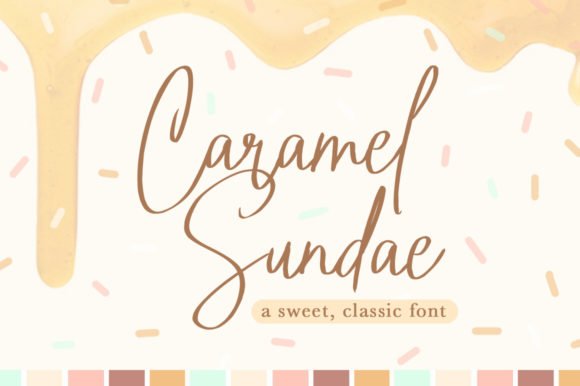
A Sweet Twist on Typography: Introducing Caramel Sundae Font
Have you ever been brainstorming a design project, flipping through font options, and suddenly, a single typeface sparks an idea that makes your creativity soar? For designers, those ‘aha’ moments are the best, and the Caramel Sundae Font is here to ignite your imagination.
This lovely, light handwritten font is inspired by the classic Caramel Sundae drink, and it’s as sweet and delicious as the real thing. The Caramel Sundae Font is designed to add a personal touch to any design project, making it stand out from the crowd. Whether you’re working on a logo, poster, or social media graphic, this font is sure to bring a smile to your audience’s faces.
What makes the Caramel Sundae Font so valuable for designers is its versatility and charm. It’s perfect for adding a touch of whimsy and personality to your designs, making it a must-have in every designer’s toolkit.
Caramel Sundae Font Key Features
- Unique Characteristics: Includes swash and alternate characters for added flair, supports Latin and Cyrillic scripts
- Font Style: Script, handwritten
Caramel Sundae Font Review
I recently had the chance to work with the Caramel Sundae font, and I must say it’s a unique and intriguing addition to any design project. ✨ The font’s warm and inviting tone immediately caught my attention, and I appreciate the attention to detail in its design.
Here are some of the things that work well with Caramel Sundae:
- ✨ Warm and inviting tone that adds a cozy feel to designs
- ✨ Unique and quirky aesthetic that can add visual interest to projects
- ✨ Good for use in packaging, food, and lifestyle designs where a playful tone is desired
However, I do have some concerns about the limitations of this font:
- ⚠️ Limited legibility in small sizes, which can make it difficult to read in certain contexts
- ⚠️ May not be suitable for formal or professional designs where a more traditional font is preferred
- ⚠️ Can be overwhelming if used in large quantities or without proper balance
Overall, I think Caramel Sundae is a great addition to any design library, but it’s essential to use it thoughtfully and in context. With some careful planning and balance, it can add a unique and engaging touch to your designs.
Caramel Sundae Font Practical Application Guide
Common use cases for the Caramel Sundae Font include:
- Restaurant and cafe menus.
- Food blogs and recipe websites.
When using the Caramel Sundae Font, be sure to pair it with complementary colors and graphics to create a cohesive and visually appealing design.
Alternatives to Caramel Sundae Font
Great Vibes Font is a beautiful, elegant script font perfect for creating a whimsical and romantic atmosphere. It is ideal for wedding invitations, greeting cards, and other decorative designs. Great Vibes Font is similar to Caramel Sundae Font in its cursive style, but it has a more refined and sophisticated look.
Pacifico Font is a modern script font with a relaxed, beachy vibe. It is perfect for designs that require a carefree and casual feel, such as summer advertisements, beach-themed invitations, and outdoor event promotions. While Pacifico Font has a more laid-back look than Caramel Sundae Font, both fonts share a similar cursive style.
Aleo Font is a stylish, elegant script font that is perfect for creating a sophisticated and luxurious atmosphere. It is ideal for high-end designs, such as luxury brand logos, upscale advertisements, and fine dining menus. Aleo Font has a more refined and classic look than Caramel Sundae Font, making it suitable for more formal designs.
Carolyna Pro Font is a modern, elegant script font that is perfect for creating a sophisticated and luxurious atmosphere. It is ideal for designs that require a touch of elegance, such as fashion advertisements, luxury brand logos, and high-end event invitations. Carolyna Pro Font has a more refined and classic look than Caramel Sundae Font, making it suitable for more formal designs.